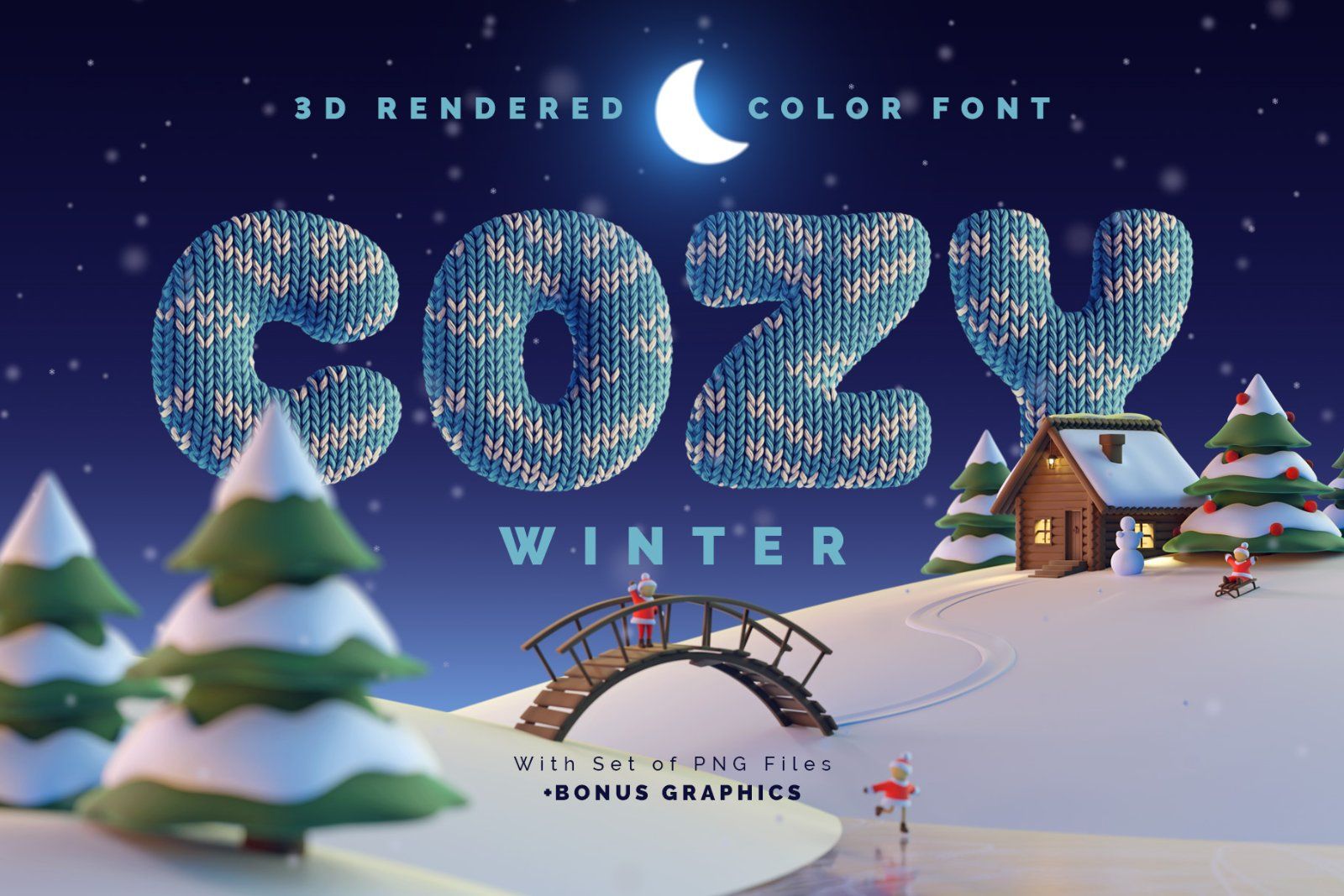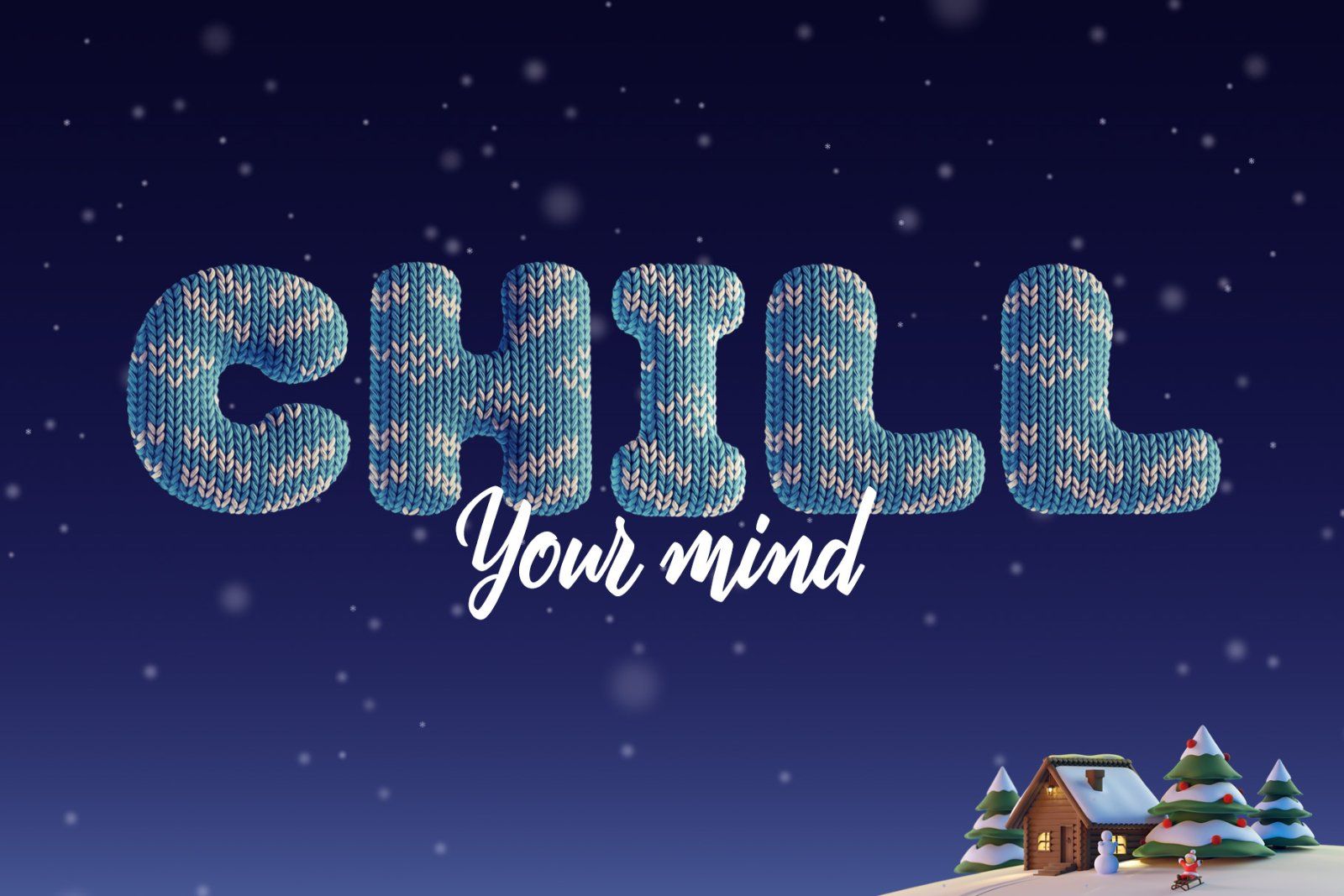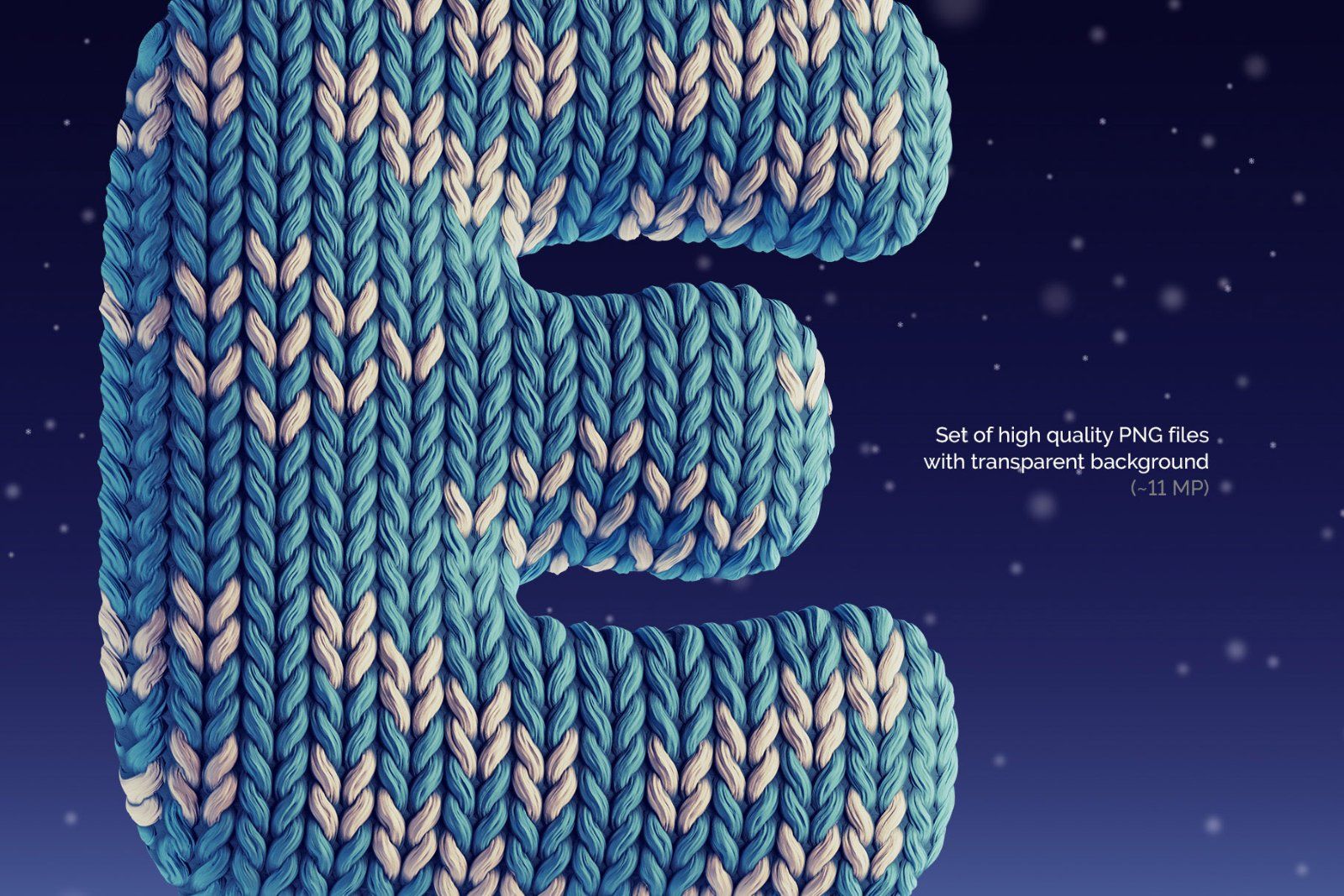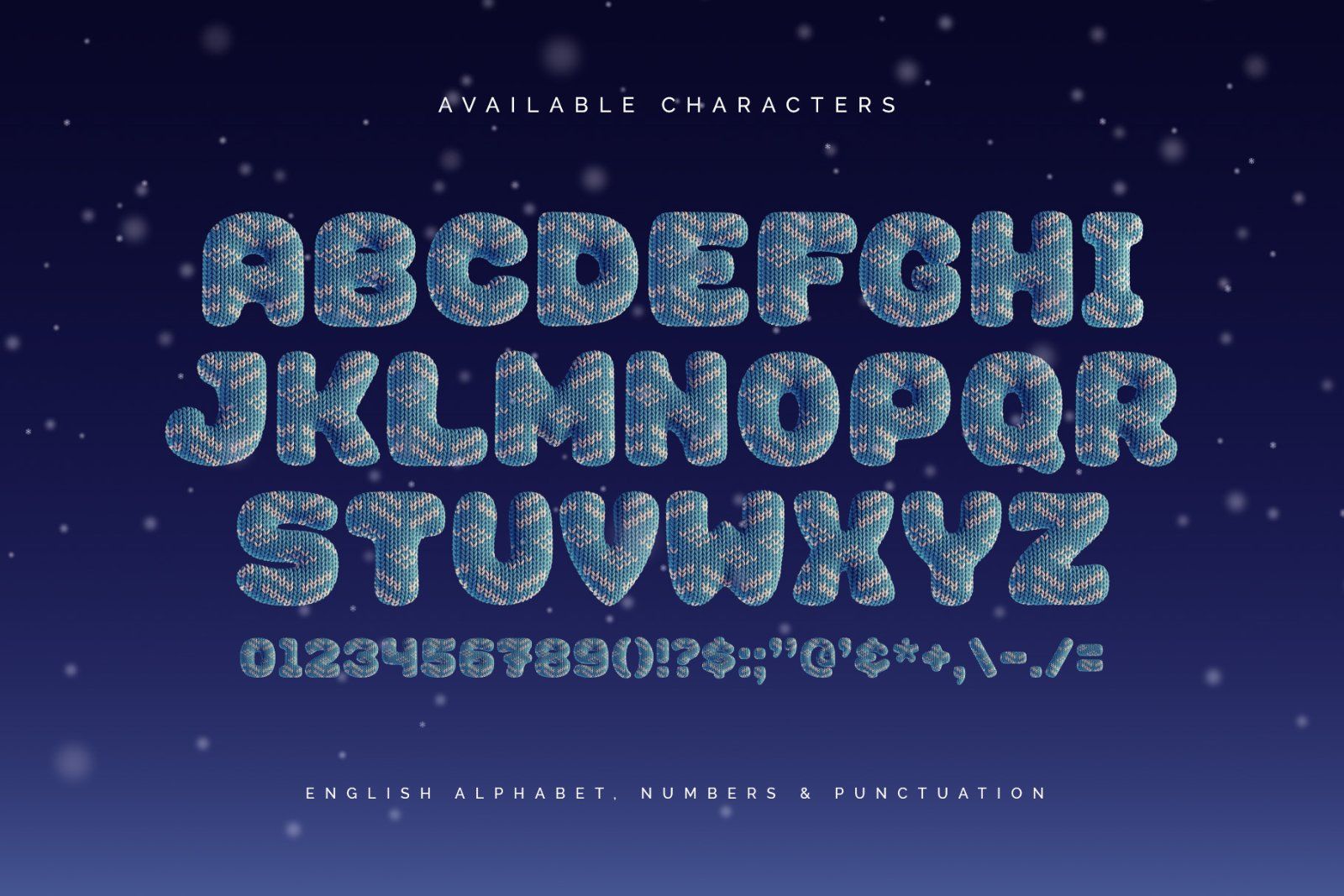
Hello! Presenting a snug creative font set – Cozy Winter. It's a 3d rendered high quality typeface made of knitted fabric with warm sweater pattern. First of all it's a color bitmap OpenType-SVG font that can be used as a usual OTF font. Also a set of full resolution PNG files with transparent background is included (Average resolution is 11 megapixels). Consider that only English language and basic punctuation is supported, please check out the screenshot with all available characters.